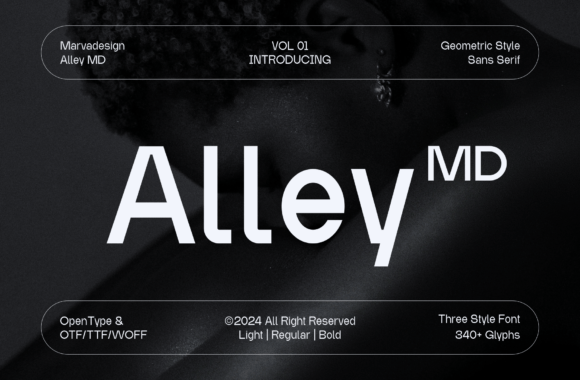
Introducing Alley MD: The Modern Sans Serif Font You Need
Have you ever been in the middle of a design project, only to find yourself stuck on one thing: the perfect font? I recall a recent project where I was tasked with creating a modern and sleek brand identity for a new startup. The client wanted something clean, geometric, and highly legible. After scouring through countless font libraries, I stumbled upon **Alley MD**, a meticulously crafted sans serif font that embodies the essence of clean, geometric design.
What Makes Alley MD Special?
**Alley MD** is characterized by its modern aesthetic, combining simplicity with subtle, unique details that set it apart from other fonts in its category. Here are some key features:
• Geometric Precision: Each character in Alley MD is designed with geometric shapes at its core, ensuring consistency and balance throughout the typeface.
• Clean Lines: The font boasts smooth, clean lines that contribute to its modern and minimalistic appearance, making it suitable for contemporary design projects.
• Subtle Box Strokes: A distinctive feature of Alley MD is the small, square strokes at the terminals of some characters. These subtle details add a touch of uniqueness and sophistication without compromising the overall clean look of the font.
• Versatile Weights: Alley MD comes in multiple weights, including Light, Regular, and Bold. The Light variant is perfect for creating a delicate and airy feel, ideal for subtle branding, fine print, or elegant invitations.
What I Love About Alley MD
• ✨ Clean and Modern Aesthetic: Alley MD’s geometric design and clean lines make it perfect for modern design projects.
• ✅ Highly Legible: The font is highly legible, even at small sizes, making it suitable for body text and fine print.
• 💡 Unique Details: The subtle box strokes add a touch of sophistication and uniqueness to the font.
While Alley MD is an excellent font, there are a few things to keep in mind:
• 🤔 Limited Character Set: Alley MD has a limited character set, which may not be suitable for projects that require a wide range of special characters.
• ⚠️ Not Suitable for All Design Projects: While Alley MD is perfect for modern and minimalist designs, it may not be the best choice for projects that require a more traditional or ornate look.
Alley MD was designed with the modern designer in mind. The font’s creator was inspired by the clean lines and geometric shapes of modern architecture and sought to bring that same aesthetic to typography. The result is a font that is both modern and timeless, perfect for designers who want to create something new and exciting.
Q: What is Alley MD?
A: Alley MD is a modern sans serif font characterized by its clean lines, geometric precision, and subtle box strokes.
Q: What is Alley MD used for?
A: Alley MD is perfect for modern design projects, including branding, advertising, and digital design.